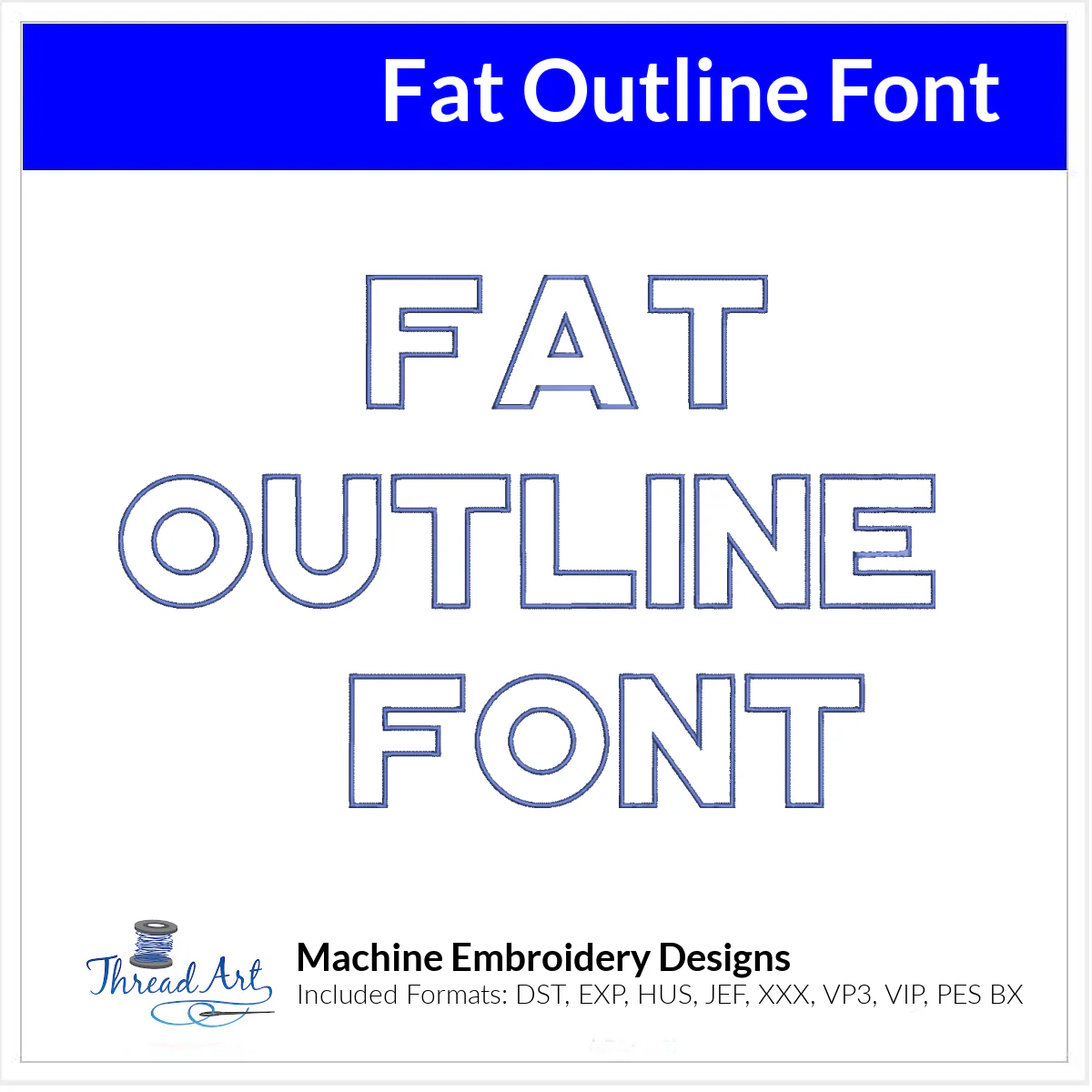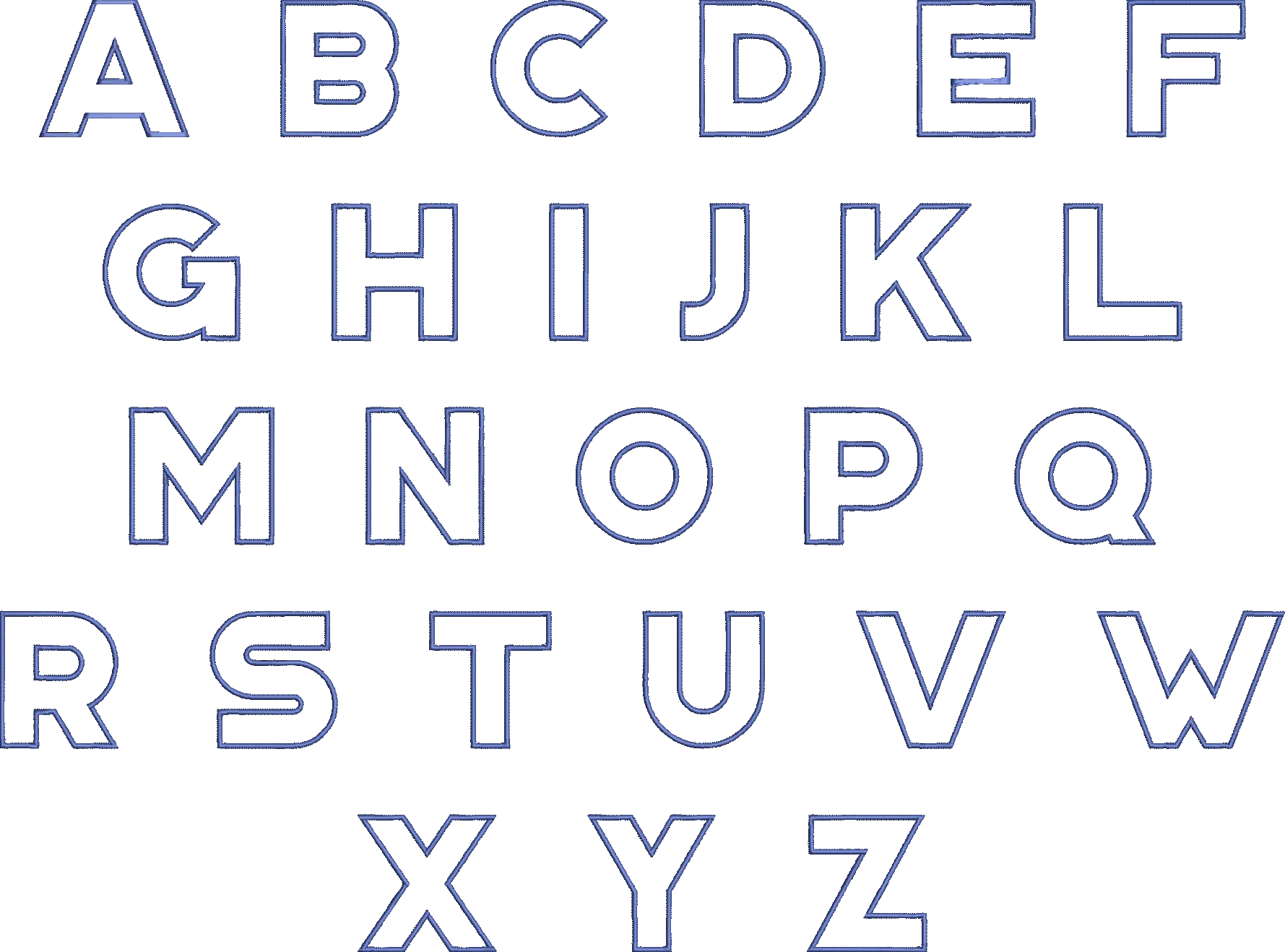
Fat Outline Font Machine Embroidery Design Set - Monogramming Alphabet Letters BX Font - Download 9 Formats and 3 Sizes
Fat Outline Font Design -- Machine embroidery font design set with different design sizes included. Letters are 1", 1.5" and 2" tall and includes uppercase monogramming style in popular formats: DST, EXP, HUS, JEF, PES, XXX, VIP, VP3, BX. Convenient for those with multiple machines. Designs will be available for instant download. Choose physical USB stick to have designs sent via mail on a usb stick.Ā 1" thru 2" are satin stitch.